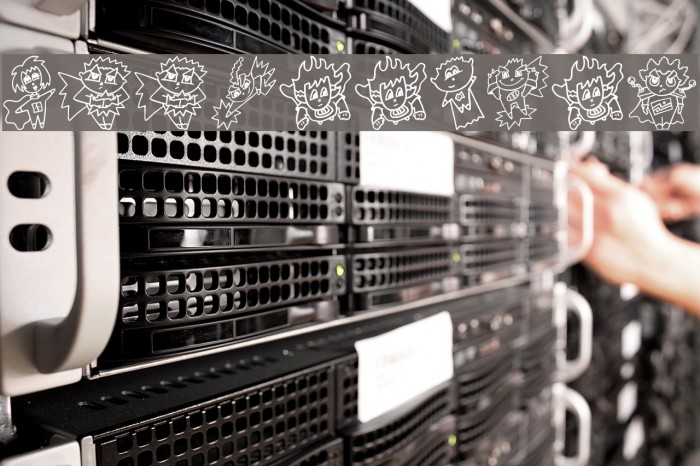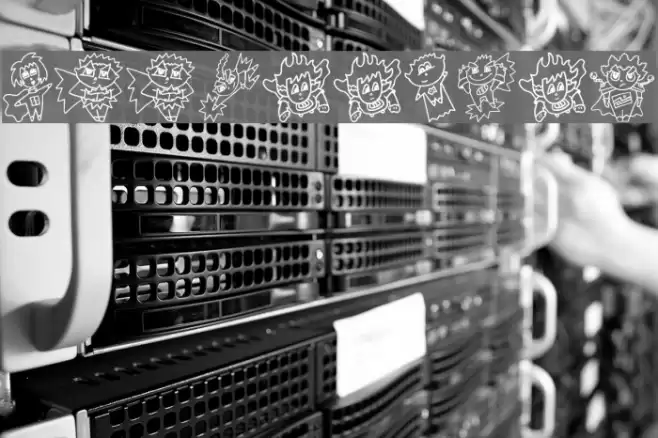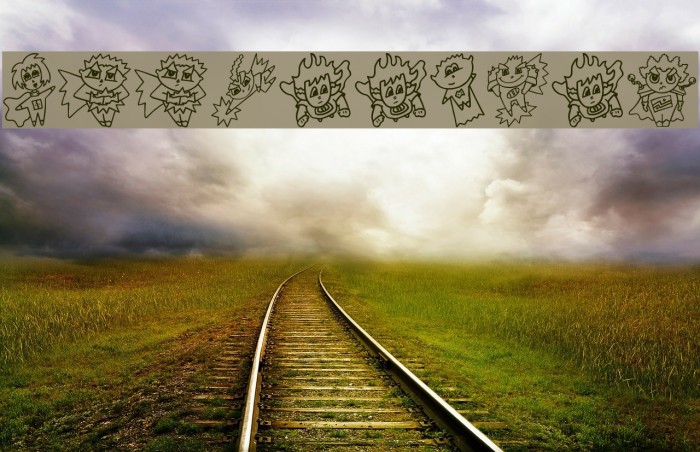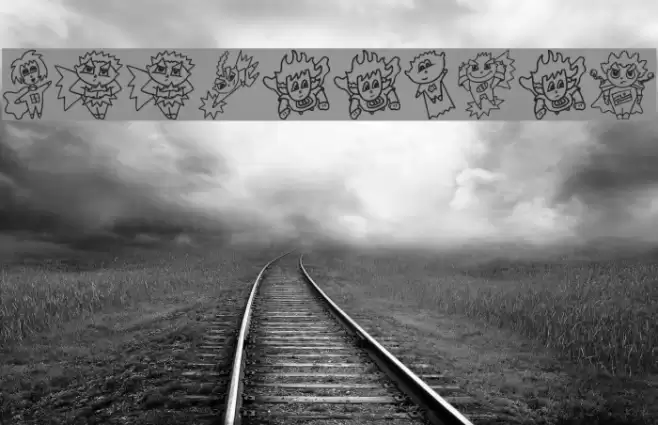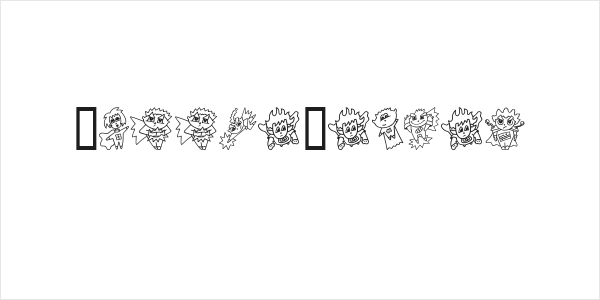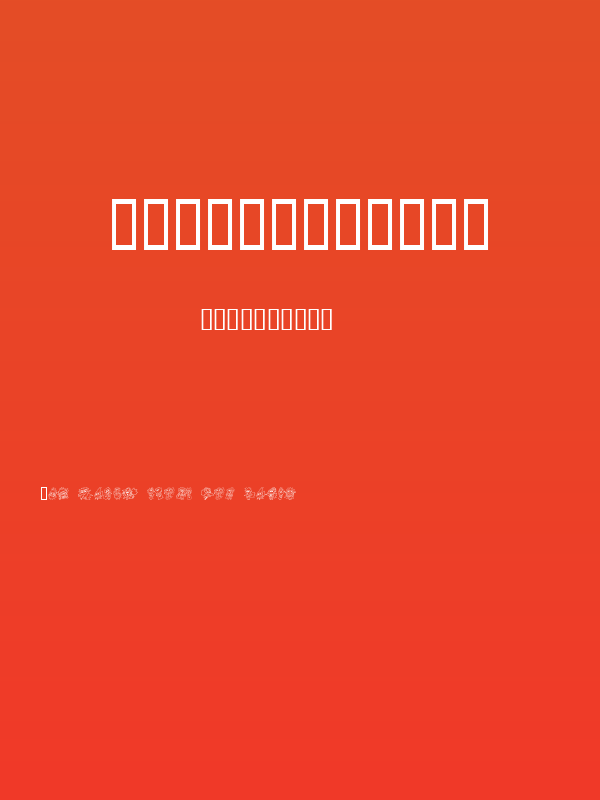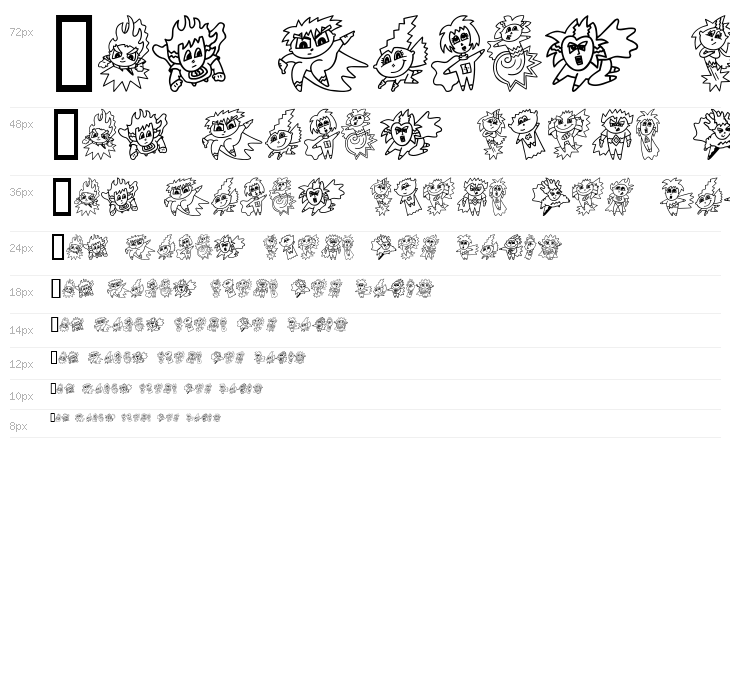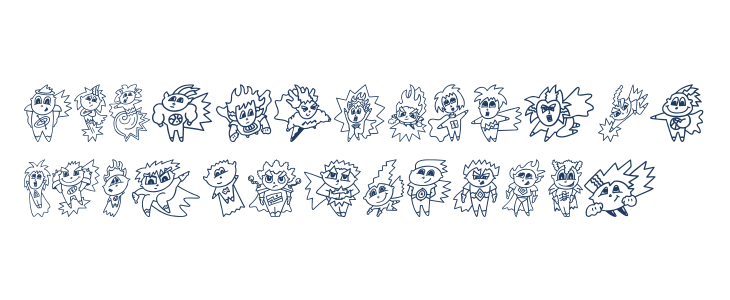
LittleHeroes Font
LittleHeroes Description
A playful, hand-drawn decorative font where each character is represented by a unique cartoon superhero figure, giving a whimsical and energetic feel. The glyphs are highly illustrative, with expressive faces and dynamic poses, making each letter distinct and full of personality.
| Overall Style | Playful, Whimsical, Cartoonish, Decorative |
| Use Case | Logos, Headlines, Posters, ChildrenΓ’β¬β’s content |
| Proposed Projects | ChildrenΓ’β¬β’s books, comic titles, party invitations, educational materials, playful branding. |